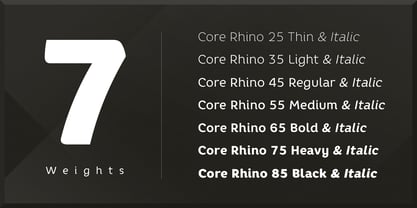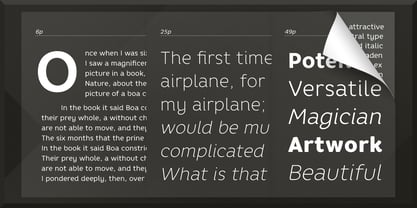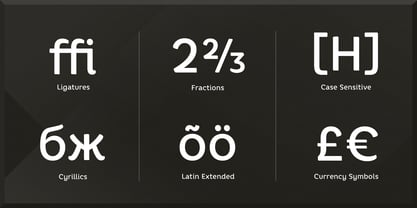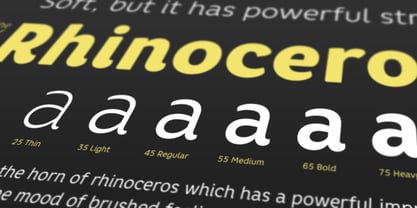
Core Rhino Font
This Core Rhino Font is perfect for powerful automotive branding, heavy machinery logos, construction company materials, industrial equipment signage, extreme sports promotions, rugged outdoor gear packaging, fortress-style gaming graphics, military vehicle communications, tough workwear branding, and unstoppable strength communications.
What makes this Core Rhino Font exciting is its unstoppable power that embodies the raw strength and unwavering determination of the mighty rhinoceros. The font features heavyweight letterforms with armored construction that convey incredible force, durability, and unbreakable resilience. Its fortress-like character and impenetrable strength make it ideal for brands seeking to communicate absolute power, industrial toughness, and unstoppable momentum in heavy-duty and extreme performance markets.
The Core Rhino Font family includes regular, bold, and black weights with armored alternates and industrial variants. This comprehensive powerhouse font family provides designers with fortress-strength typographic tools to create indestructible compositions while maintaining the armored character essential for heavy industry and extreme performance brand communications.
Industrial companies and extreme sports brands consistently choose Core Rhino Font Free Download for projects requiring maximum strength and unstoppable appeal. This font's distinctive fortress character perfectly captures the raw power and unbreakable determination that resonate with audiences who demand ultimate durability and extreme performance in challenging environments.
The armored construction of Core Rhino Font showcases heavyweight letterforms with fortress-like proportions that ensure maximum impact across all heavy-duty applications. Its impenetrable appearance and industrial strength create memorable impressions while maintaining the readability necessary for effective heavy industry communication and extreme performance materials.
Professional designers appreciate how Core Rhino Font delivers immediate power and industrial authority to brand communications. The font's fortress nature allows organizations to communicate unstoppable strength and extreme durability while maintaining the professional quality necessary for effective positioning in heavy industry and extreme performance markets.
The unstoppable appeal of Core Rhino Font makes it particularly effective for brands emphasizing raw power, industrial strength, and unbreakable durability. Its armored character resonates strongly with audiences who appreciate extreme performance, heavy-duty reliability, and brands that represent the pinnacle of industrial toughness and unstoppable force.
Whether developing branding for heavy machinery manufacturers or creating materials for extreme sports equipment, Core Rhino Font Free Download provides the fortress-strength typographic foundation that powerhouse brands need to communicate their unstoppable force, industrial durability, and the unbreakable strength that defines heavy-duty excellence and extreme performance achievement.